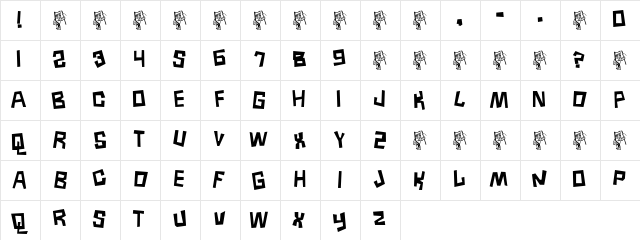
Q Valiz 3 Regular
Design Context for Q Valiz 3 Typeface
Q Valiz 3 is a composed and adaptable typeface that performs quietly and consistently across a wide range of design contexts.